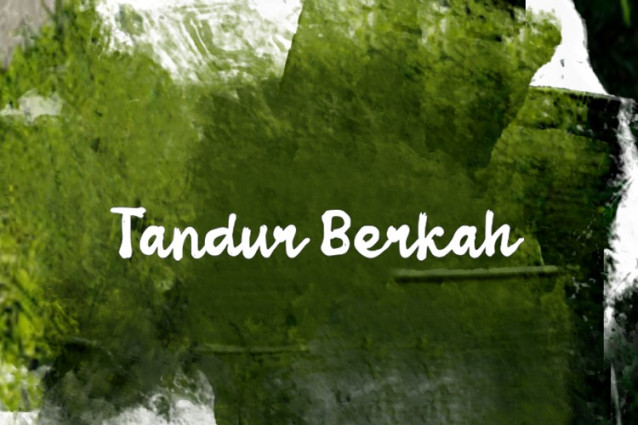
Tandur Berkah Font
Tandur Berkah Font – This casual and bold brush script font is perfect for merchandise design such as t-shirts, mugs, tote bags, and any advertising campaign stuff. It’s clear, smooth, and easy to read!